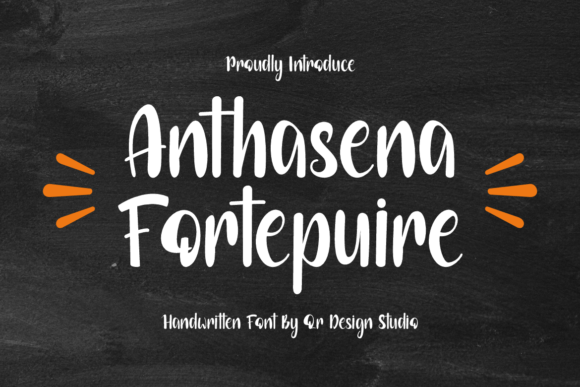
The Sweet Spot: Discovering Anthasena Fortepuire Font
I’ll never forget the moment I stumbled upon Anthasena Fortepuire Font while working on a project for a client who wanted a unique, handwritten touch. I had been scouring the internet for hours, trying to find the perfect font to match their brand’s playful yet sophisticated vibe. As soon as I saw Anthasena Fortepuire, I knew I had hit the jackpot. Its sweet and friendly style instantly resonated with me, and I couldn’t wait to dive in and explore its features.
So, what makes Anthasena Fortepuire Font so special? Here are a few things that I absolutely love:
- ✨ Natural and unique style: Anthasena Fortepuire has a distinct, handwritten charm that sets it apart from other fonts.
- ✅ Versatility: This font can be used for a wide range of designs, from invitations and greeting cards to branding and advertising materials.
- 🌈 Emotional connection: The font’s friendly and approachable style helps create an instant emotional connection with your audience.
Of course, no font is perfect, and Anthasena Fortepuire has a few minor quirks to keep in mind:
- 🤔 Limited character set: While the font has a wide range of characters, it may not have every special character or glyph you need.
- ⚠️ Occasional kerning issues: As with any font, you may need to adjust kerning settings to ensure optimal spacing between letters.
The Story Behind Anthasena Fortepuire
Anthasena Fortepuire Font was designed with the goal of creating a friendly, approachable typeface that would bring a touch of warmth to any design. The font’s creator drew inspiration from classic handwritten scripts and infused them with a modern twist. The result is a font that’s both elegant and playful, perfect for a wide range of creative projects.
| What type of projects is Anthasena Fortepuire suitable for? | Anthasena Fortepuire is perfect for a wide range of projects, including invitations, greeting cards, branding materials, social media graphics, and more. |
| Is Anthasena Fortepuire a sans-serif font? | No, Anthasena Fortepuire is a handwritten script font with a natural, cursive feel. |